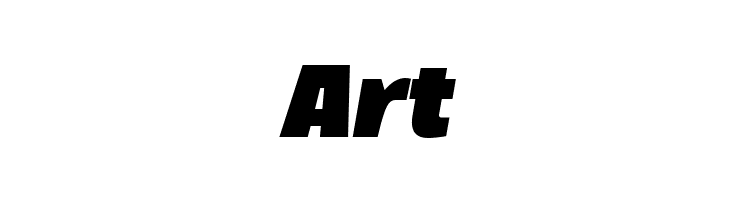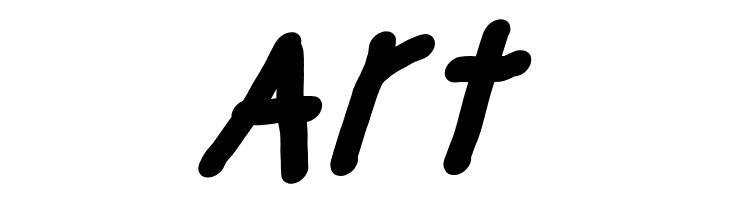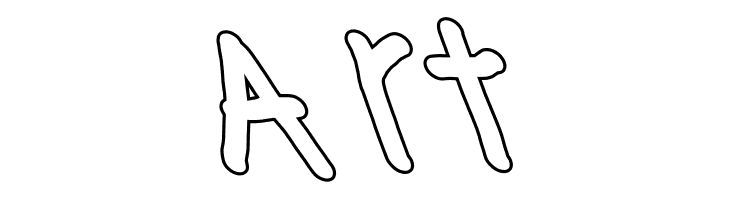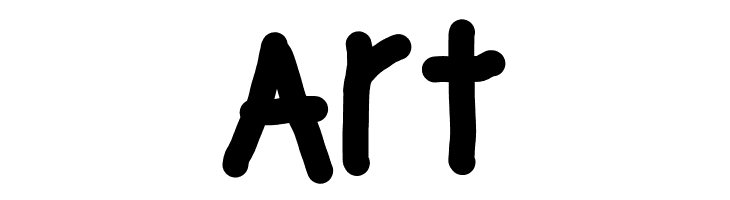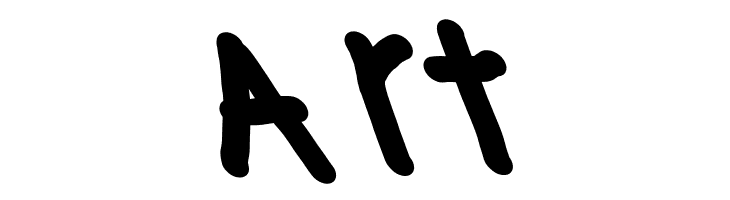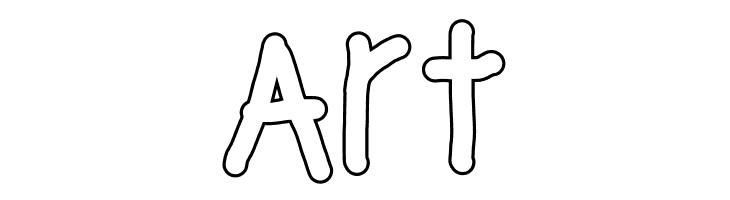
A bold, rounded, and playful hand-drawn font.
A bold, handwritten font with a playful, italicized style.
A bold, hand-drawn font with thick strokes and a playful, informal style.
A playful, hand-drawn outlined font with a whimsical and casual style.
A playful, hand-drawn italic font with outlined characters.
A playful, hand-drawn font with thick, uneven strokes and a whimsical style.
A bold, impactful font with thick, uniform strokes and geometric shapes.
A bold, italic font with a dynamic and modern style.
A bold, slanted font with a dynamic and modern style.
A bold, modern font with thick strokes and geometric shapes, perfect for impactful headlines.